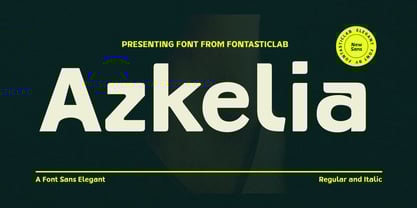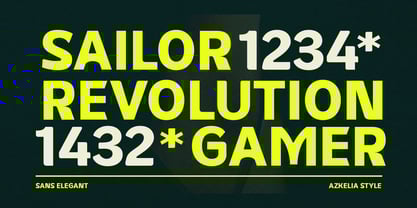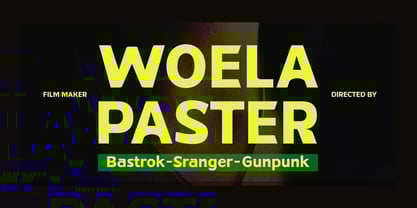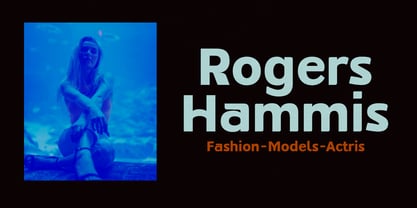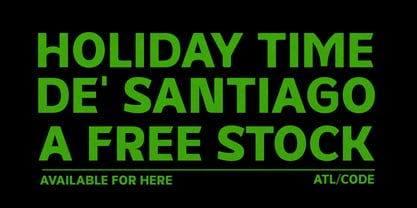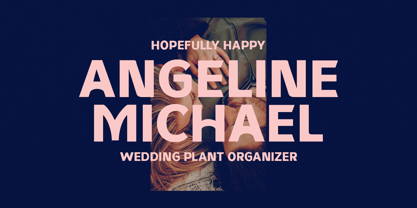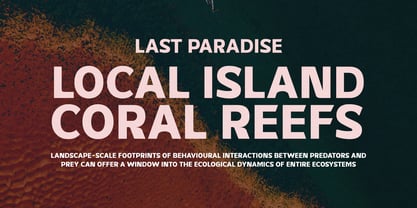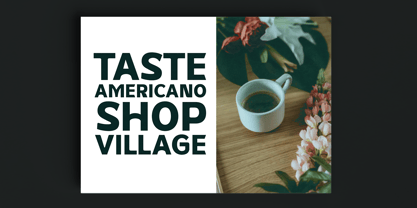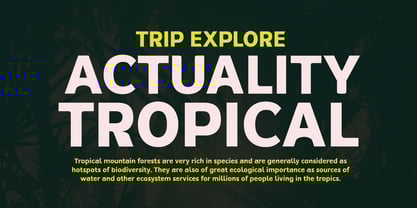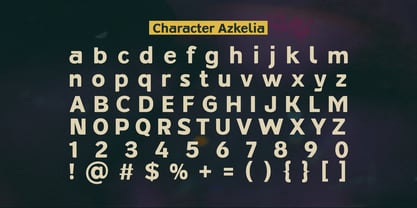
Azkelia
by Fontastic Lab
The Azkelia Font Family was designed by Bebby Lutfitharina and published by Fontastic Lab. Azkelia contains 2 styles and family package options. More about this family
Azkelia offers a charming and elegant style. These two characters, in keeping with current trends, will be very appealing for you to create classy designs while maintaining a stable and sophisticated style.
You'll find inspiration in a variety of alternative ligature and swash glyph styles to combine with your extraordinary creativity!